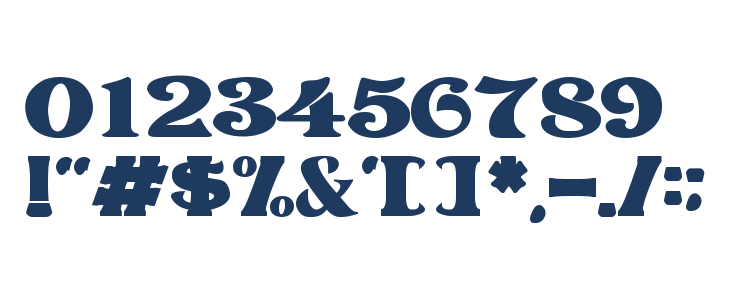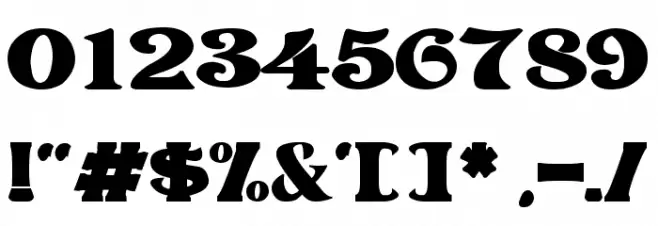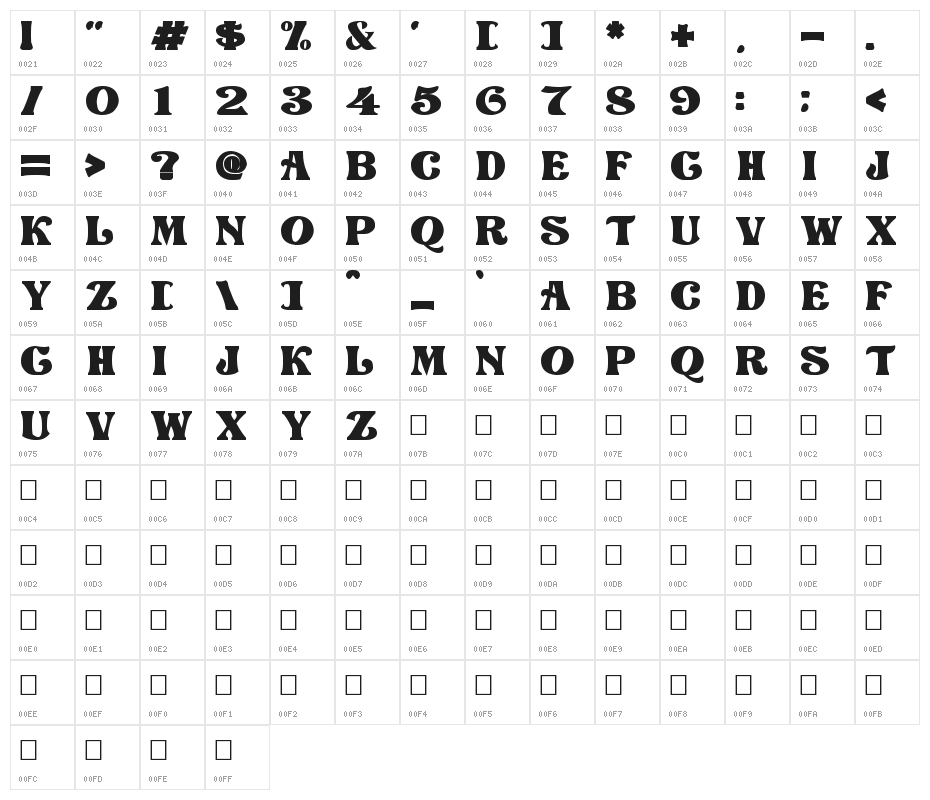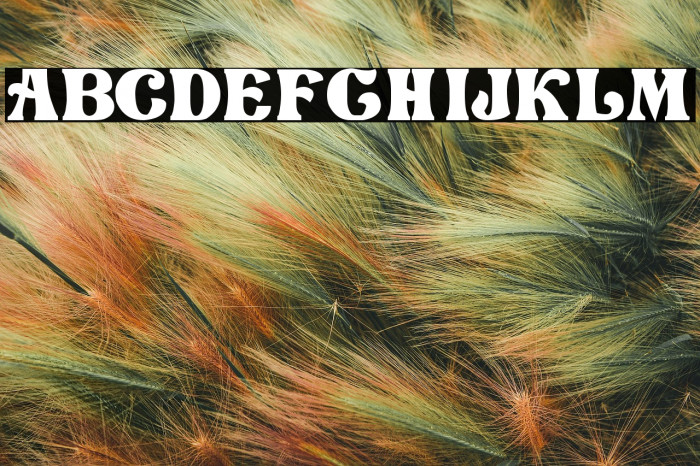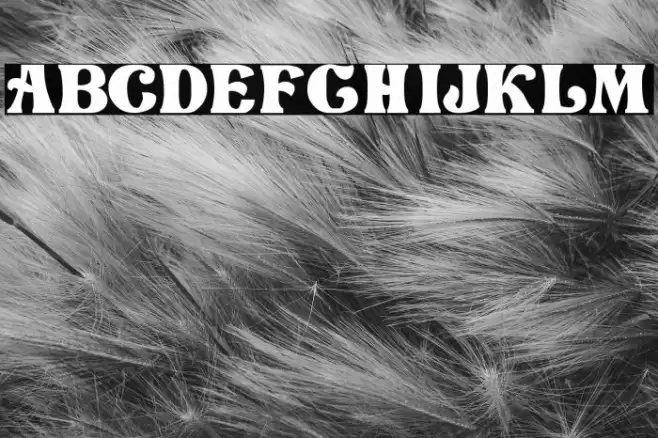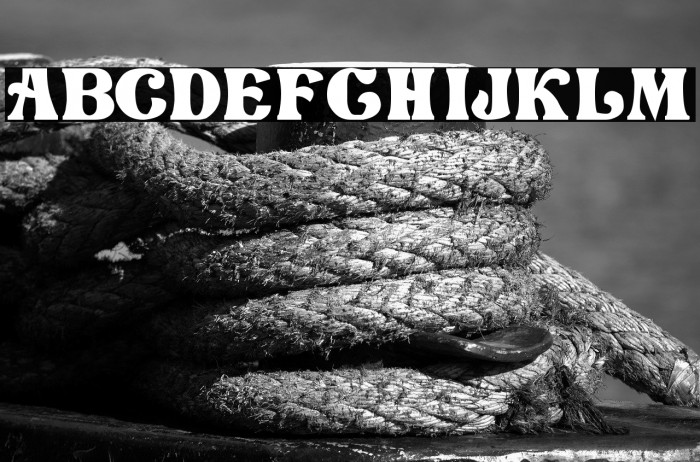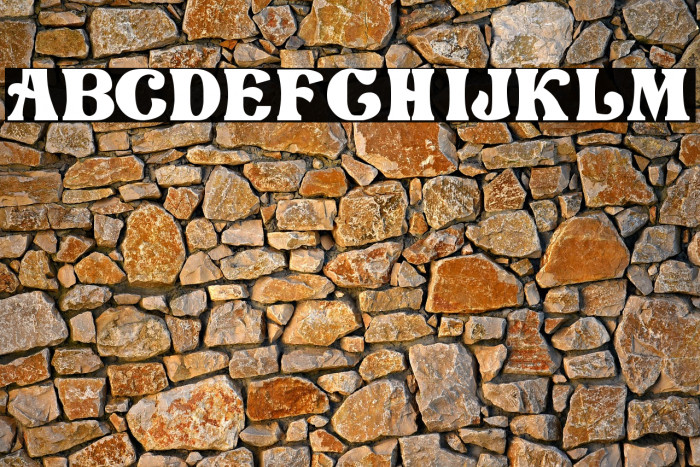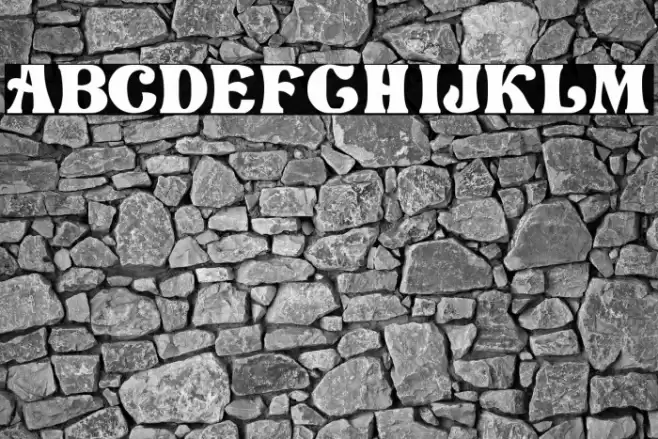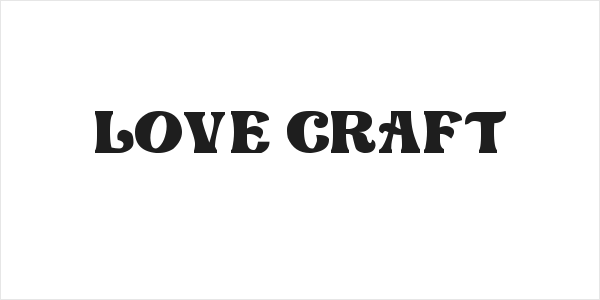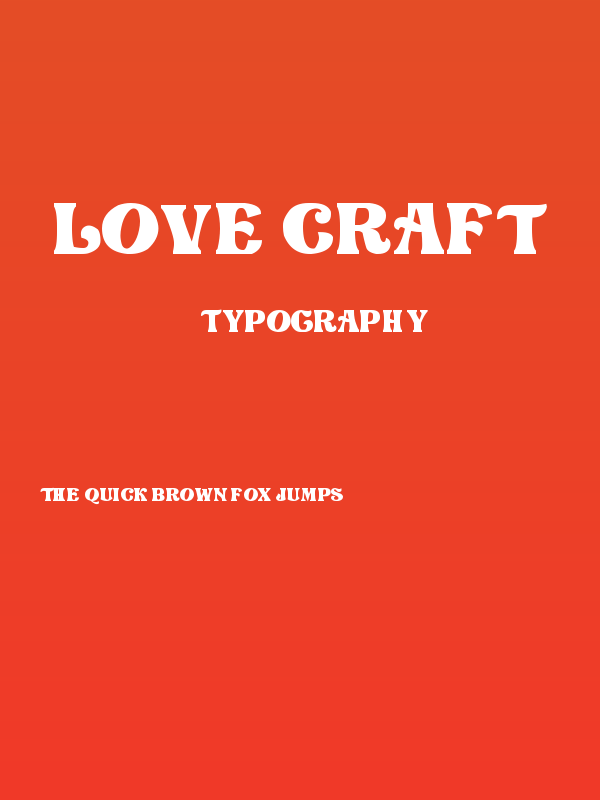
Love Craft Font
Love Craft Description
This font features a bold and decorative style with a vintage flair. The characters are characterized by thick, curvy strokes and unique serifs that give it a playful yet sophisticated appearance. The uppercase letters are particularly striking, with exaggerated curves and flourishes that add a sense of drama and elegance. The numerals and special characters maintain the same boldness and decorative elements, ensuring consistency throughout the typeface. This font's distinct personality makes it ideal for projects that require a touch of whimsy and creativity.
| Overall Style | Vintage, Decorative |
| Proposed Projects | Ideal for posters, branding, packaging, and any project that requires a bold, creative touch. |